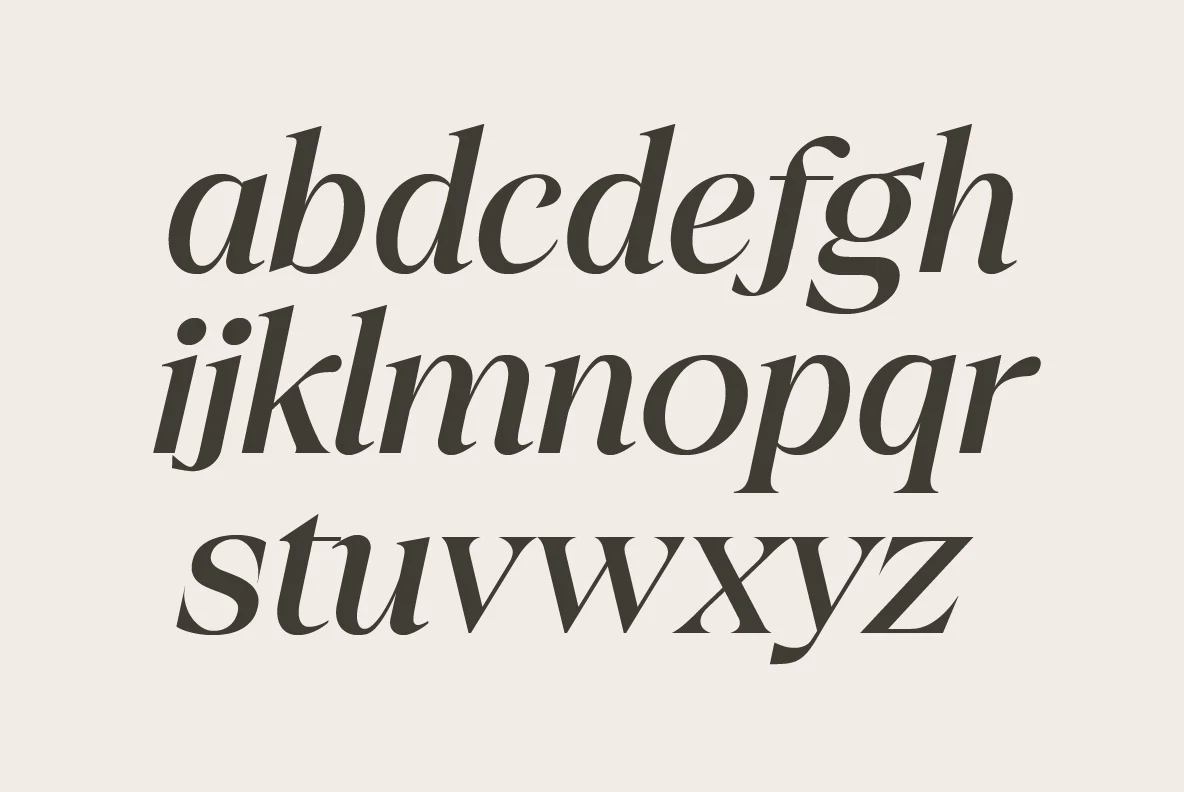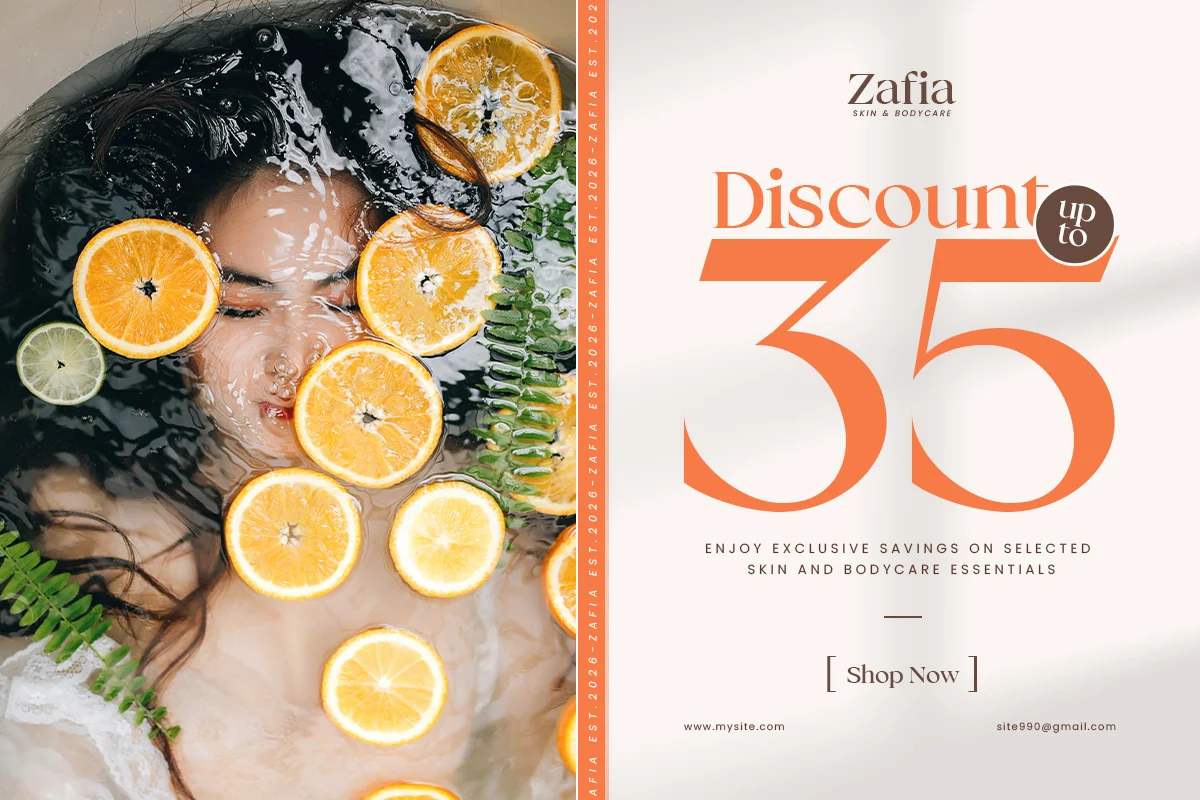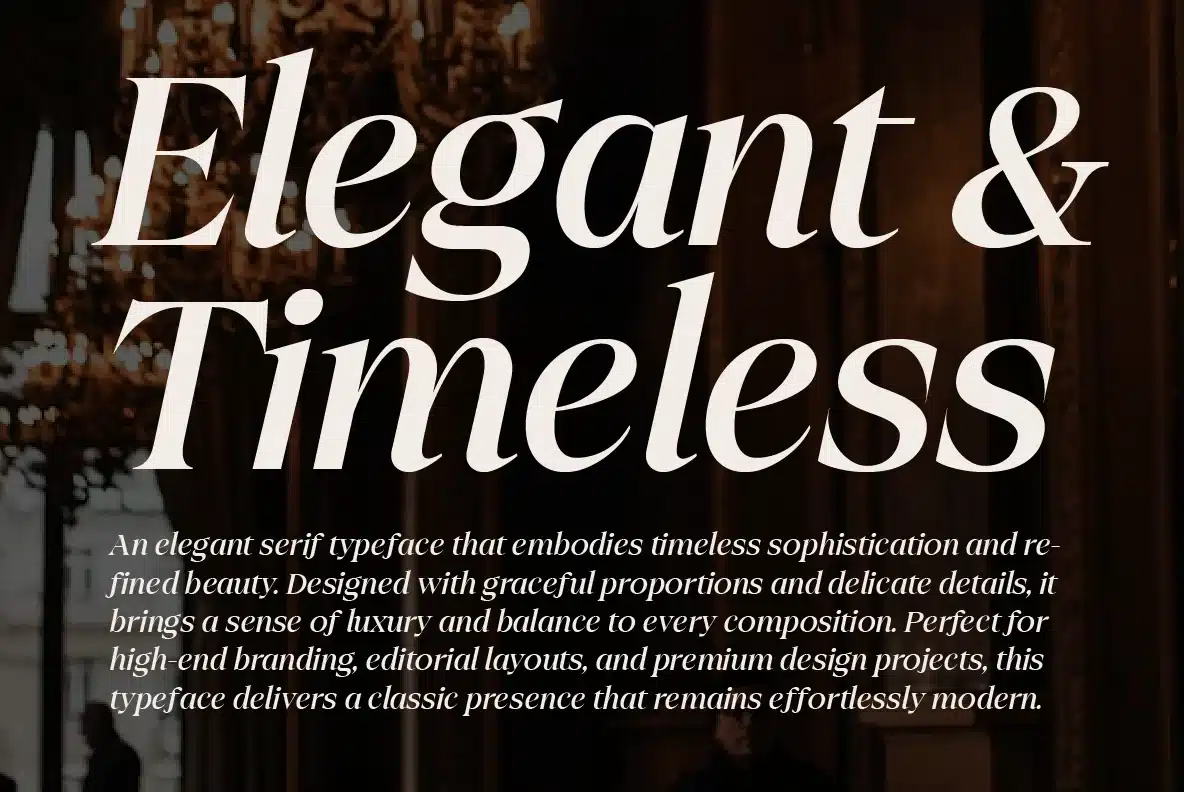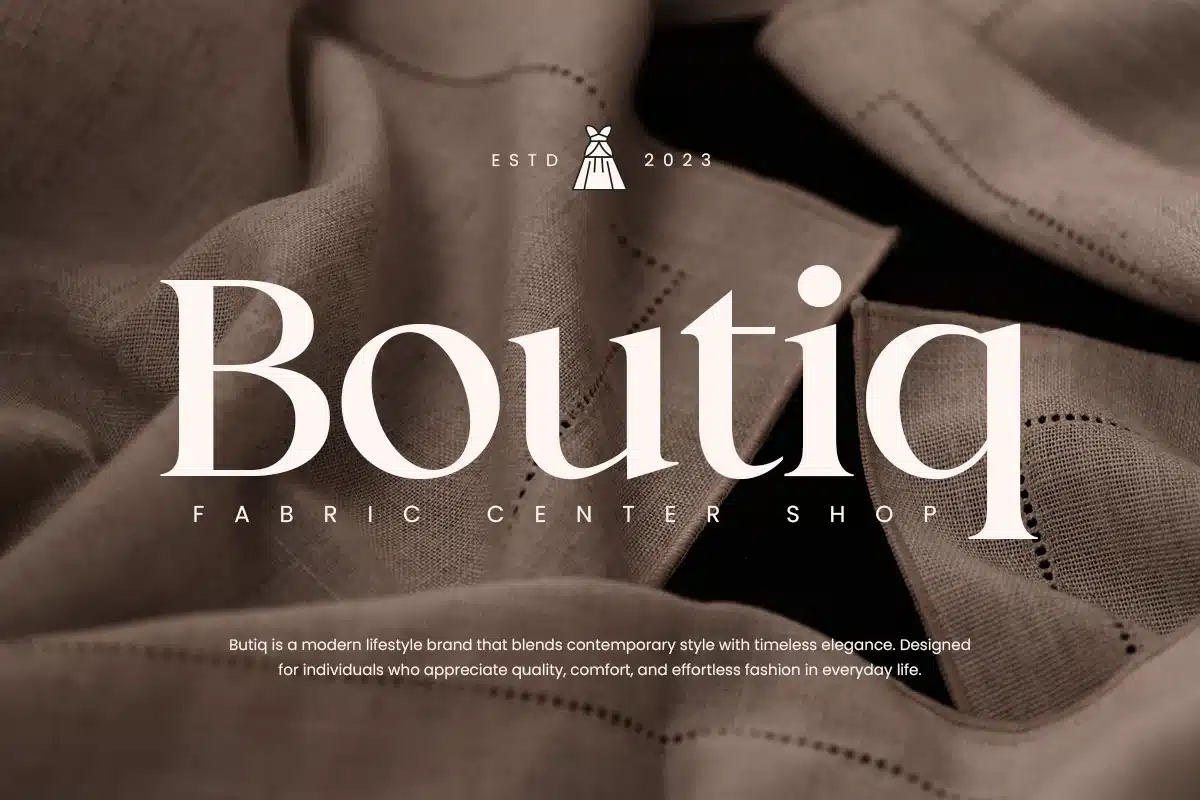
Misrina – Modern Serif Font
Misrina is a serif typeface designed with clean proportions and graceful letterforms for modern design needs. Its balanced structure creates a clear and refined typographic look, making it suitable for branding, editorial layouts, logos, packaging, invitations, and fashion-related design projects.
Featuring two styles: Regular and Italic, Misrina provides flexibility for creating consistent typography across different visual compositions. The letterforms are crafted to work well for titles, logos, and editorial layouts where a serif typeface is needed to support a clear and professional visual identity.
- Clean and refined letterforms
- Suitable for branding, editorial, and fashion design
- Balanced serif structure for display use
- Includes Regular & Italic styles